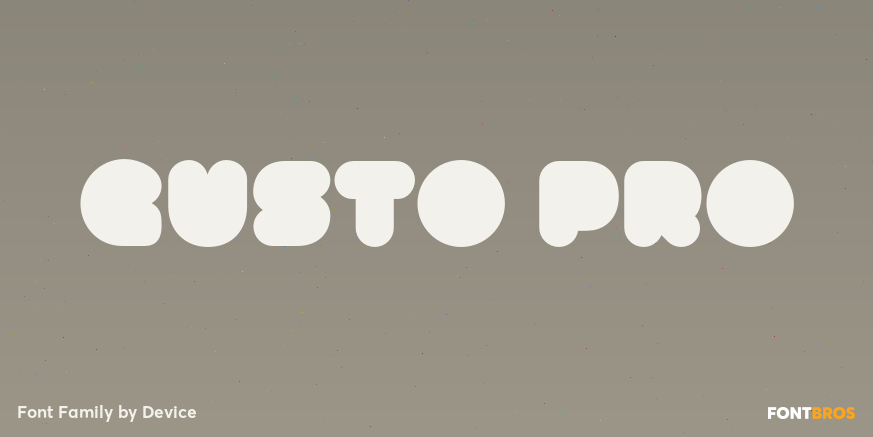
HomeFont BrosFuturisticGusto Pro FuturisticSans Serif Gusto Pro FacebookTwitterPinterestWhatsApp 1 of 1 About Gusto Pro Gusto comes in three related variants that go from hot-dog to melted chocolate, a gastronomic combination not to be passed up (or thrown up).  DOWNLOAD NOW 56 0 People also explored Fun School Font Kayleigh Kensley Font Happy Fun Font Lolly Sweety Font Dilaney – Handwritten Font Holiday Font Milky Vanilla Font Qualzharo Font Salty Doggie Gresix Font Emilia-Romagna Font Walling Love Font Tags2232FGusto Pro Font Previous articleMeanstreets BBNext articleBoozebats LEAVE A REPLY Cancel reply Comment: Please enter your comment! Name:* Please enter your name here Email:* You have entered an incorrect email address! Please enter your email address here Website: Save my name, email, and website in this browser for the next time I comment. Unlock Endless Creativity with the FREE September Clipart Huge Bundle (Valued at $700!) Personal Use Free Rogueland Personal Use Free Read more Adeline Personal Use Free Read more UseYourImagination Personal Use Free Read more Austin Personal Use Free Read more BLOG Using Fonts in Digital Marketing: Tips to Strengthen Your Brand Identity In the realm of digital marketing, every visual element plays a crucial role in shaping a brand's identity, and fonts are no exception. The... Transform Your Website: Elevate Your Typography with 7 Best Web Font Generators The 10 Best Handwriting Fonts to Add Personality to Your Designs Exploring Font Trends